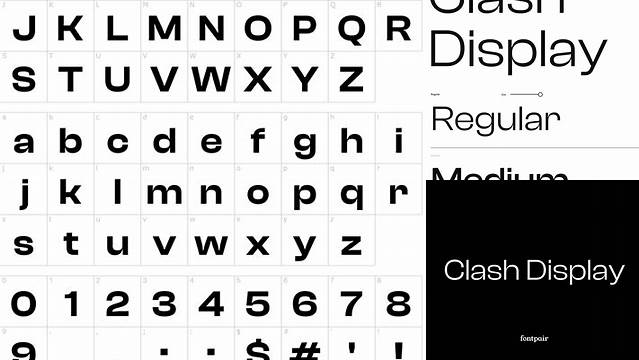
Hey, designers and font enthusiasts! Ever stumbled upon a typeface that just clicks? That's the magic of a well-crafted font, and today, we're diving deep into the Clash Display Semibold font. If you're on the hunt for a modern, versatile font that adds a punch of personality to your projects without breaking the bank, you've come to the right place. We're going to explore everything you need to know, from where to snag this beauty for free to how to best utilize its stylish semibold weight. So, buckle up, because we're about to unlock the potential of this awesome font!
Understanding the Allure of Clash Display Semibold Font
The world of typography is vast, but certain fonts rise above the rest due to their unique characteristics and adaptability. The Clash Display Semibold font is one such gem. Designed with a contemporary aesthetic in mind, it boasts a distinctive geometric flair blended with humanist touches, making it incredibly readable while still maintaining a strong visual presence. The semibold weight, in particular, strikes a perfect balance – it's bold enough to command attention for headlines and titles, yet not so heavy that it becomes overwhelming for longer blocks of text when used judiciously. Its clean lines and subtle curves give it a sophisticated yet approachable feel, making it a go-to choice for a wide array of design applications. Whether you're crafting a brand identity, designing a website, or laying out a magazine spread, the Clash Display Semibold font offers a fresh and modern voice. Its popularity stems from its ability to convey confidence and clarity, ensuring your message is not only seen but also felt. Think of it as the font equivalent of a well-tailored suit – sharp, professional, and undeniably stylish. The creators have put a lot of thought into its construction, resulting in a typeface that performs exceptionally well across different mediums, from digital screens to print.
Why Choose Clash Display Semibold for Your Next Project?
When you're in the thick of a design project, choosing the right font can feel like a huge decision. You want something that aligns with your brand's personality, is easy to read, and, let's be honest, looks good. The Clash Display Semibold font ticks all these boxes and then some. Its semibold weight offers that sweet spot between standard and heavy, providing excellent legibility for headlines, subheadings, and even short paragraphs. What makes it stand out is its contemporary geometric structure infused with subtle humanist elements. This combination results in a typeface that feels both modern and friendly, avoiding the coldness sometimes associated with purely geometric fonts. Guys, this means your designs will look current and professional without sacrificing approachability. It's incredibly versatile; imagine using it for a sleek tech startup logo, a chic fashion brand's marketing materials, or even a modern restaurant menu. The clean, crisp lines ensure it scales beautifully across various sizes and resolutions, making it a dream for both web and print design. Plus, the free download aspect is a massive bonus, democratizing access to high-quality typography for everyone, from seasoned professionals to budding design students. You get premium aesthetics without the premium price tag, which is always a win in our book.
Different Weights and Styles Available
While our focus is squarely on the Clash Display Semibold font, it's worth noting that font families often come with a range of weights and styles to offer comprehensive design flexibility. Clash Display, being a well-thought-out typeface, typically includes several variations. You might find lighter weights like Light or Regular for more delicate text applications, alongside the workhorse Semibold that we're discussing. Then, there are typically heavier options such as Bold, Extrabold, and Black, perfect for making a strong, impactful statement in headlines or key design elements. Beyond weight, some font families also offer italics or stylistic alternates, adding even more creative possibilities. Understanding the entire Clash Display family allows you to create harmonious typographic hierarchies within your designs. For instance, you could use the Light weight for body copy, the Semibold for subheadings, and the Bold for the main title, all within the same cohesive font family. This consistency is crucial for professional-looking design. Even if your immediate need is just the Semibold, knowing about the other styles can inform your future design choices and ensure brand consistency across various applications. It's like having a full toolkit – you might only need one wrench right now, but it's good to know the others are there!
Practical Applications of Clash Display Semibold in Web Design
In the dynamic world of web design, the Clash Display Semibold font proves to be an invaluable asset. Its clean, modern aesthetic translates beautifully to screen interfaces, offering excellent readability across various devices and screen sizes. When used for headings and navigation menus, the Semibold weight provides just the right amount of emphasis without being visually jarring. Think about those sleek, minimalist websites that feel both sophisticated and easy to navigate – Clash Display Semibold fits right in. It helps guide the user's eye, clearly delineating different sections of content. For call-to-action buttons or important alerts, its confident presence ensures the message is noticed immediately. Even for short, impactful pieces of body text or product descriptions, the Semibold can add a touch of professionalism and clarity. Its geometric construction ensures that it renders crisply on high-resolution displays, avoiding the pixelation or fuzziness that can plague less robust fonts. Furthermore, its web-safe nature (assuming it's properly implemented with web fonts) means consistent rendering across different browsers. Designers often pair it with a simpler, more neutral font for body copy to create a balanced look, letting Clash Display Semibold shine in its intended roles. It’s the kind of font that elevates the user experience by making the interface feel polished and intentional, guys, which is exactly what we want.
Clash Display Semibold Font for Branding and Identity Projects
When it comes to building a brand, typography plays a starring role. The Clash Display Semibold font is an absolute powerhouse for branding and identity projects. Its modern, somewhat edgy yet highly legible character makes it ideal for companies aiming for a contemporary, forward-thinking image. Imagine a tech startup, a design agency, or even a lifestyle brand wanting to project an image of innovation and style. Clash Display Semibold offers that perfect blend. Use it for your main logotype, and it immediately conveys a sense of confidence and clarity. For marketing collateral – business cards, brochures, social media graphics – this font ensures your brand's visual voice is consistent and impactful. The Semibold weight is particularly useful because it’s strong enough to be memorable but not so aggressive that it alienates potential customers. It strikes a sophisticated balance that appeals to a wide audience. Think about pairing it with a more subdued font for body text to create a professional and aesthetically pleasing contrast. This font allows brands to stand out in a crowded marketplace, communicating their message with clarity and a distinct sense of modern flair. It’s the kind of font that makes people take notice and remember your brand’s name. It’s a fantastic tool for establishing a strong visual identity that resonates with a target audience looking for something fresh and current.
Optimizing Readability with Clash Display Semibold
Readability is king in design, and the Clash Display Semibold font is engineered with this principle in mind. While the 'Semibold' designation suggests a certain weight, its design ensures it doesn't sacrifice legibility. The generous x-height, clear letterforms, and balanced spacing contribute to making text comfortable to read, even at smaller sizes or in longer passages if used appropriately. When applying it, consider its strengths. It excels for headlines, subheadings, and short bursts of text where you need impact and clarity. For instance, using it for a pull quote in an article or a key feature on a product page draws the reader's attention effectively. If you're considering it for body text, it's best reserved for shorter paragraphs or situations where the overall design aesthetic demands a bolder presence. In such cases, ensure ample line spacing (leading) and perhaps slightly reduced font size to maintain comfort. The geometric underpinnings provide a clean structure, while the subtle humanist touches prevent it from feeling too rigid. This careful balance means that Clash Display Semibold can be a highly effective tool for guiding the reader's eye and emphasizing key information without causing fatigue. Always test your typography choices across different devices and contexts to ensure optimal readability for your intended audience, guys. It’s about making sure your message is not just seen, but easily understood.
Clash Display Semibold Font in Print Design
The versatility of the Clash Display Semibold font extends beautifully into the realm of print design. Whether you're working on a magazine layout, a poster, a book cover, or even stationery, this font brings a contemporary edge and professional polish. Its clear, defined letterforms ensure excellent reproduction in print, appearing crisp and sharp on paper. The Semibold weight is particularly effective for headlines and titles in print, offering strong visual hierarchy that guides the reader through the content. Imagine a striking poster for an event – Clash Display Semibold can make the title pop, immediately grabbing attention. In a magazine, it's perfect for section headings, ensuring a modern and engaging reading experience. For book covers, it can convey a sense of modernity and sophistication, depending on the context. While it's robust enough for display purposes, it can also work for short blocks of text in print, such as captions or call-out boxes, adding a distinct stylistic element. As with digital design, pairing it with a complementary font for body copy can create a visually appealing contrast. Print has a tactile quality, and the visual impact of Clash Display Semibold contributes significantly to the overall feel and perceived quality of the printed piece. It’s a font that doesn’t just convey information; it adds a layer of design sophistication to the physical page.
Conclusion: Unleash the Power of Clash Display Semibold
So there you have it, guys! The Clash Display Semibold font is more than just a free download; it's a versatile, stylish, and highly functional tool for any designer's toolkit. Its modern aesthetic, balanced weight, and excellent readability make it suitable for a vast range of projects, from sleek web designs and impactful branding to crisp print materials. Remember to always check the licensing details to ensure you're using it ethically and legally. By understanding its strengths, experimenting with its potential, and pairing it thoughtfully with other typefaces, you can elevate your designs significantly. Whether you're a seasoned professional or just starting out, having access to quality fonts like Clash Display Semibold empowers you to create compelling visuals without breaking the bank. Now go forth, download it, and start creating something amazing! Happy designing!